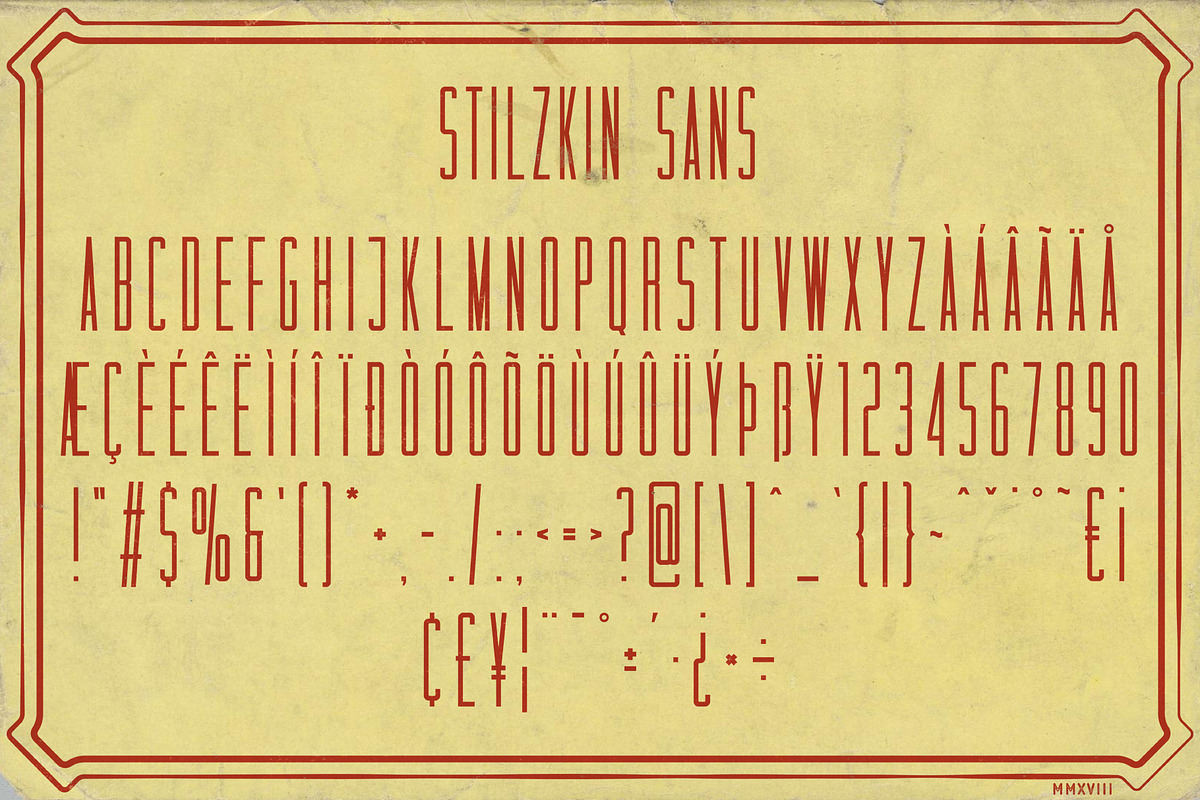
The Print Press Collection
The Print Press Collection is a display font set inspired by vintage typography used on printed posters, matchboxes, postcards, advertisements etc. 5 different typeface families will allow you many options for combining fonts in logo, label, poster, t-shirt and branding design. Random styles of the fonts can be used in modern and vintage design styles. Enjoy!
- Blutzen - A rounded sans typeface
- Fratley - All caps bold sans font
- Garnet - A retro, hand style script font
- Harold - All caps, extended serif typeface
- Stilzkin Sans - All caps condensed sans font
- Stilzkin Slab - All caps condensed slab serif font
Each font has 3 styles: CLEAN, ROUGH and AGED